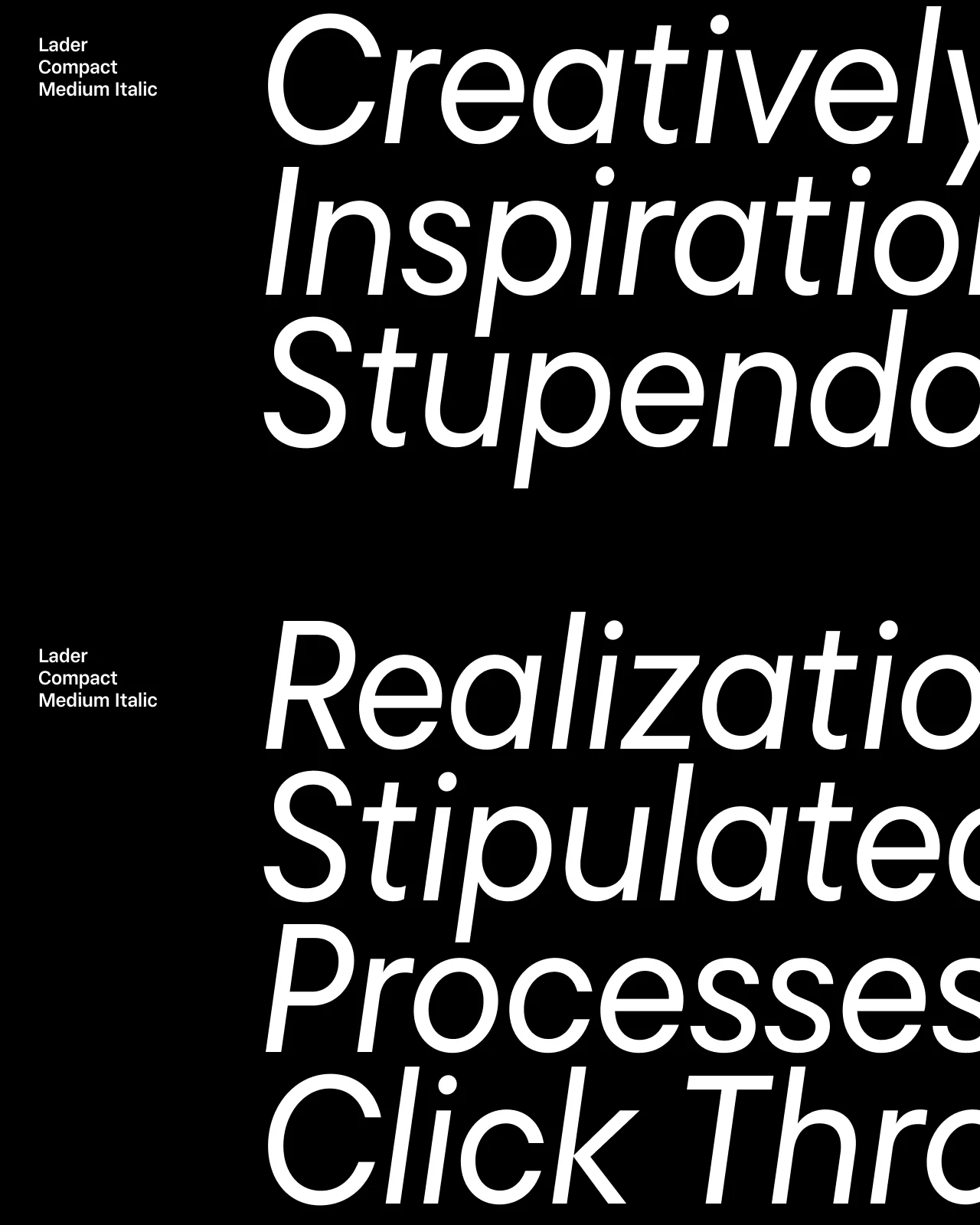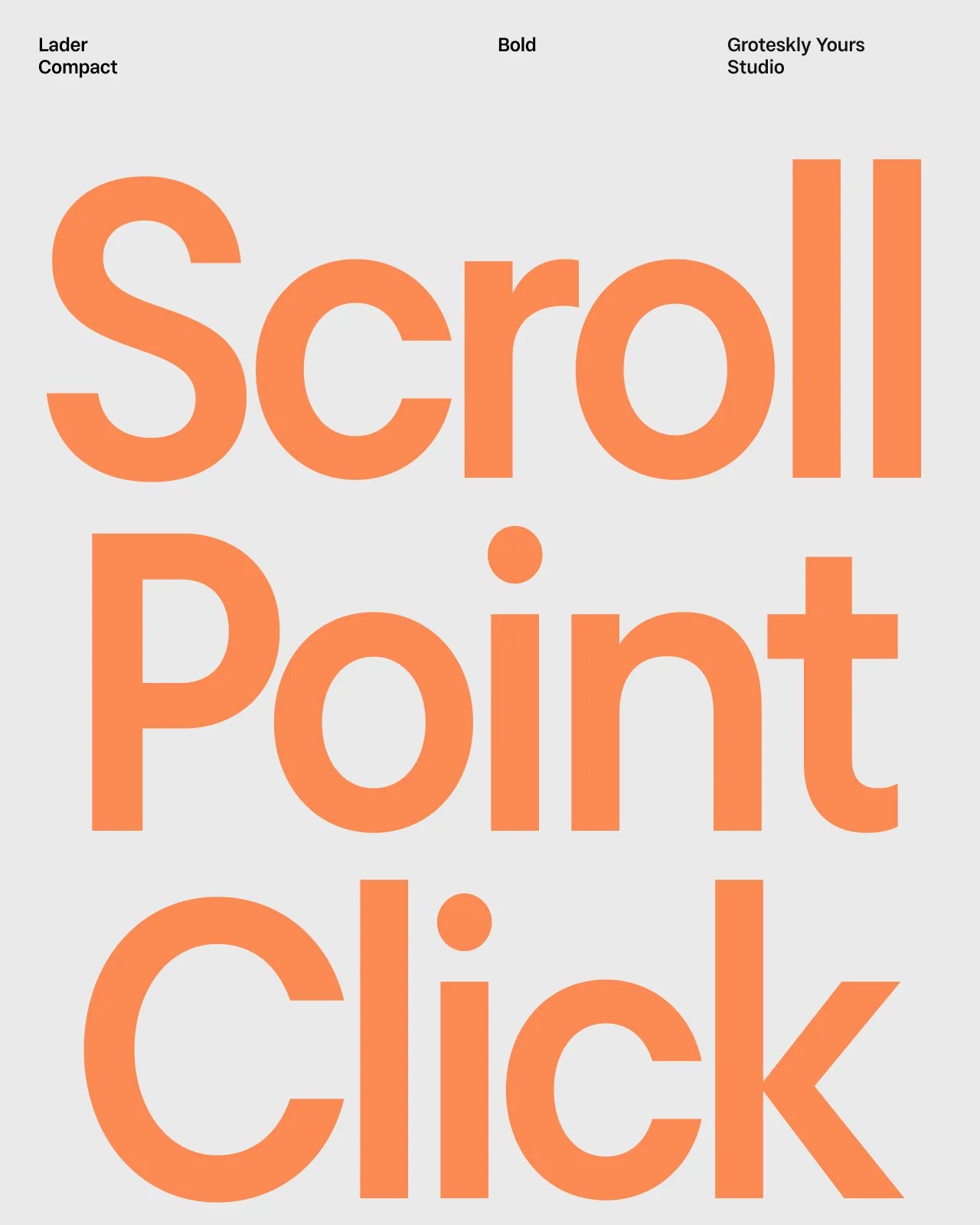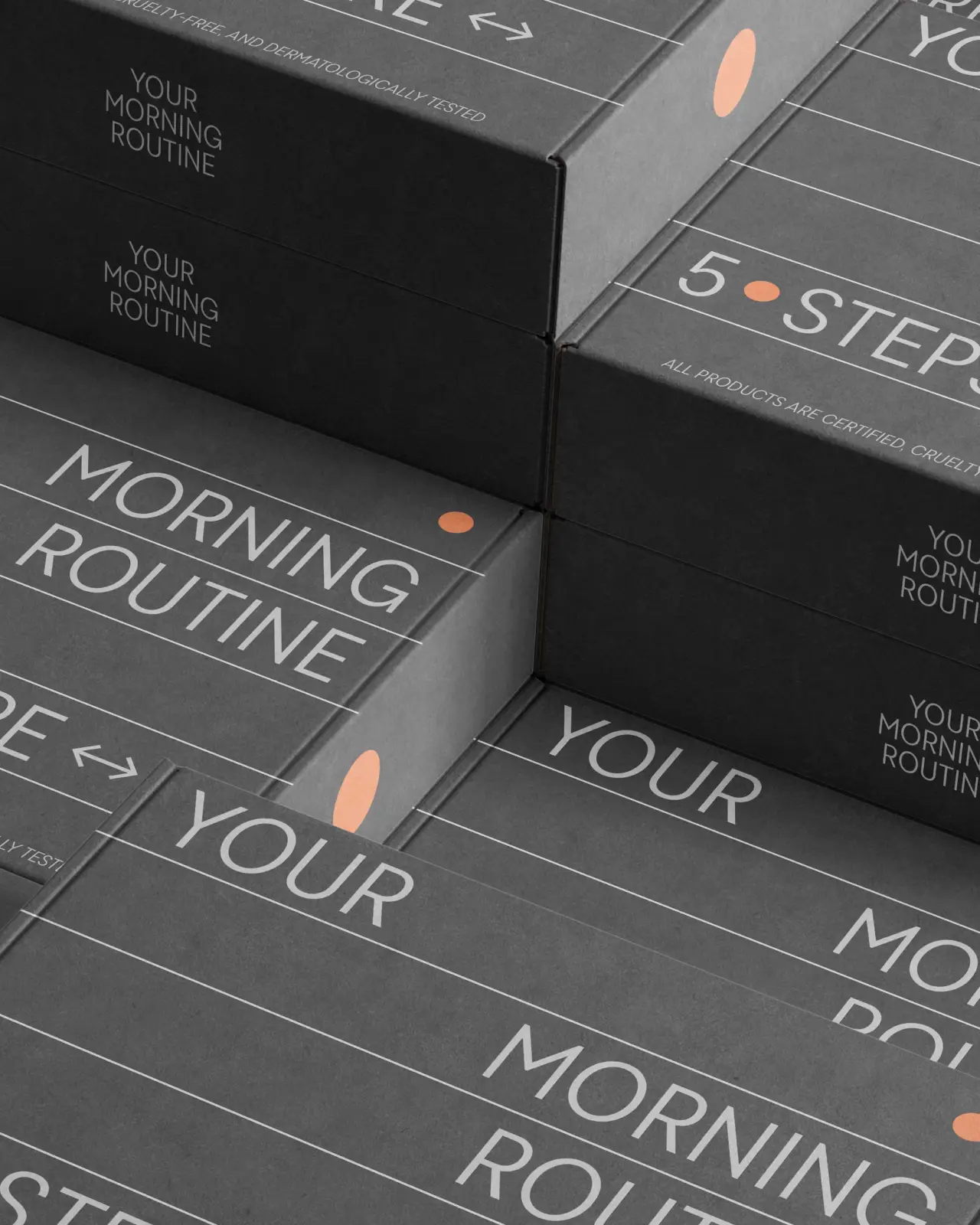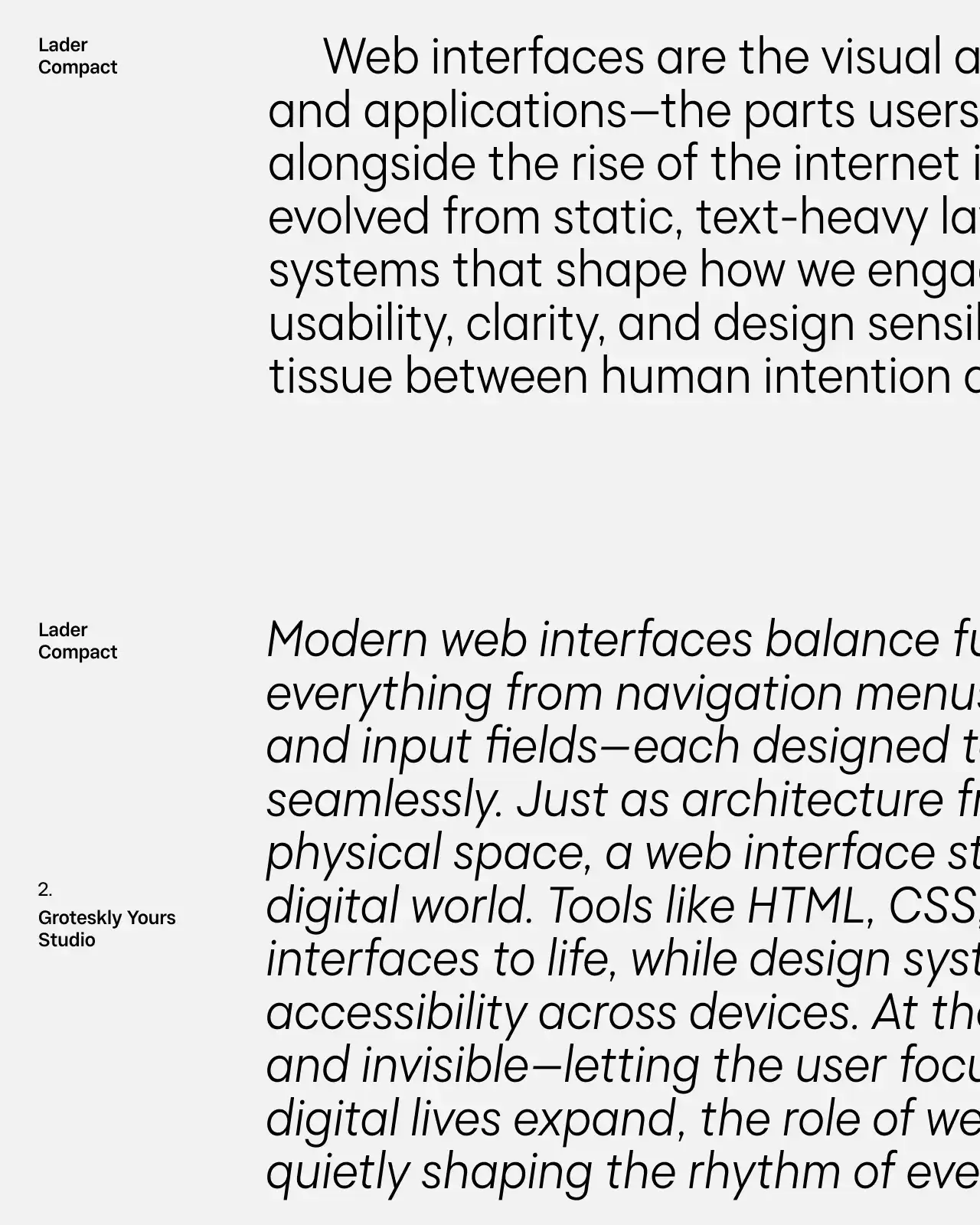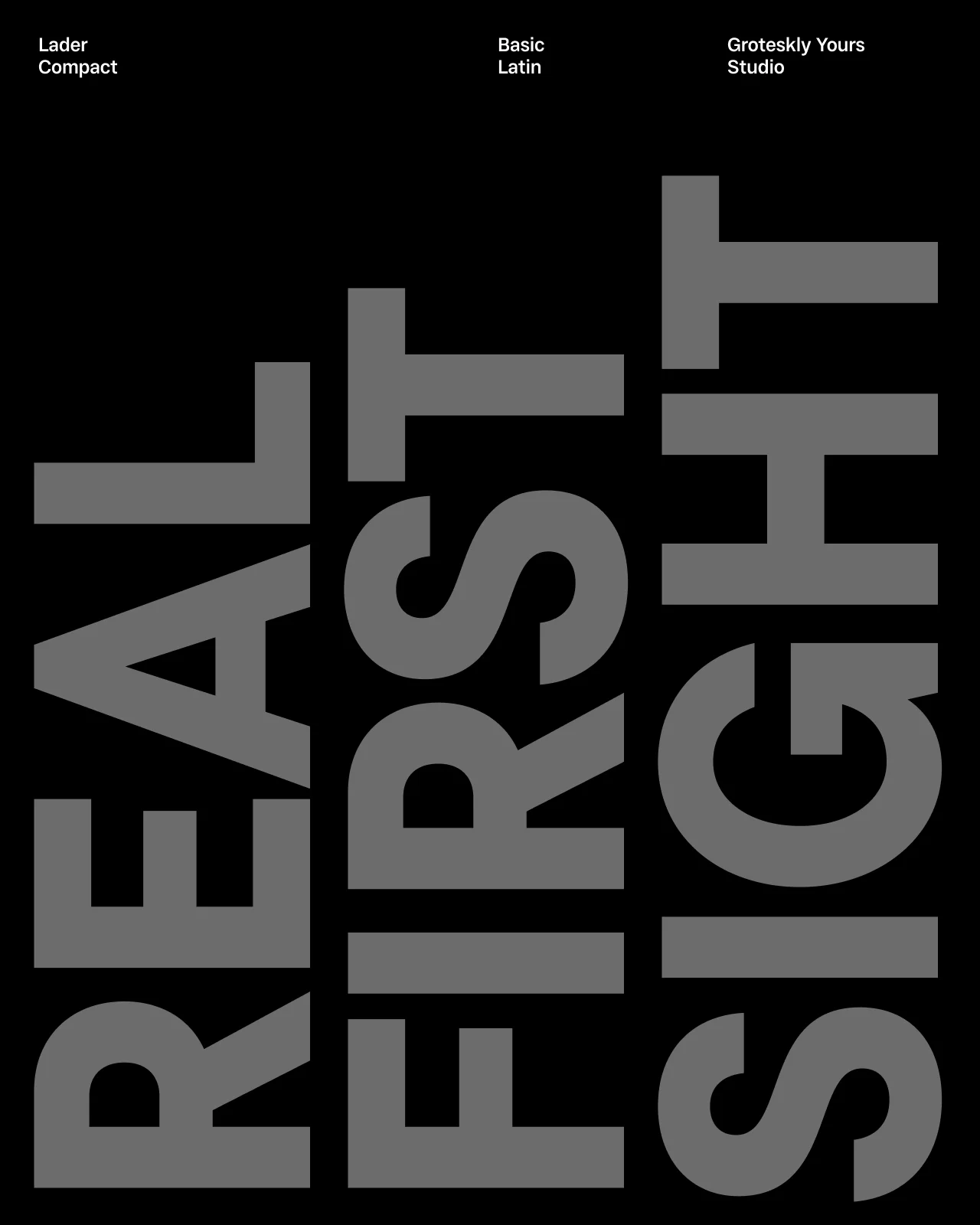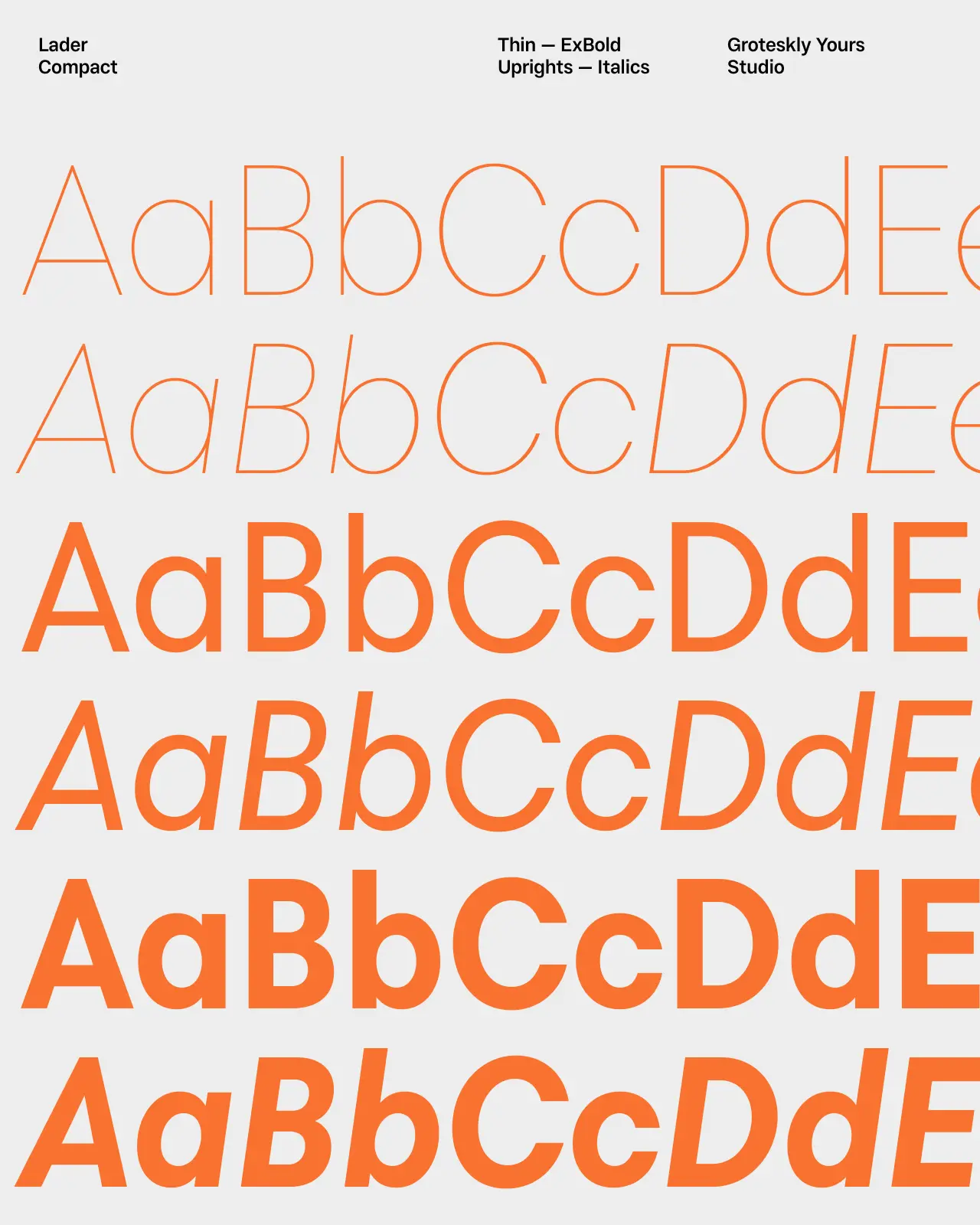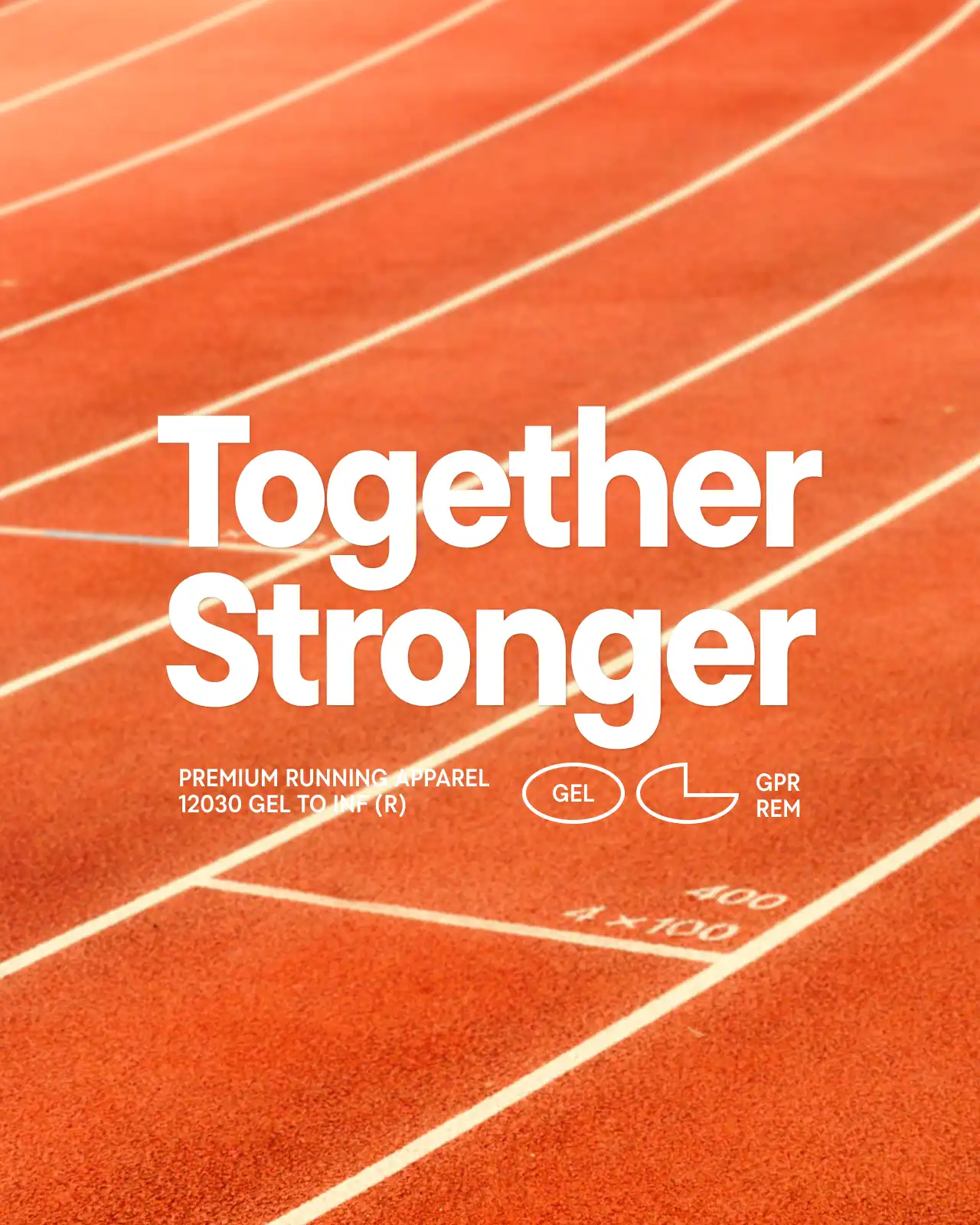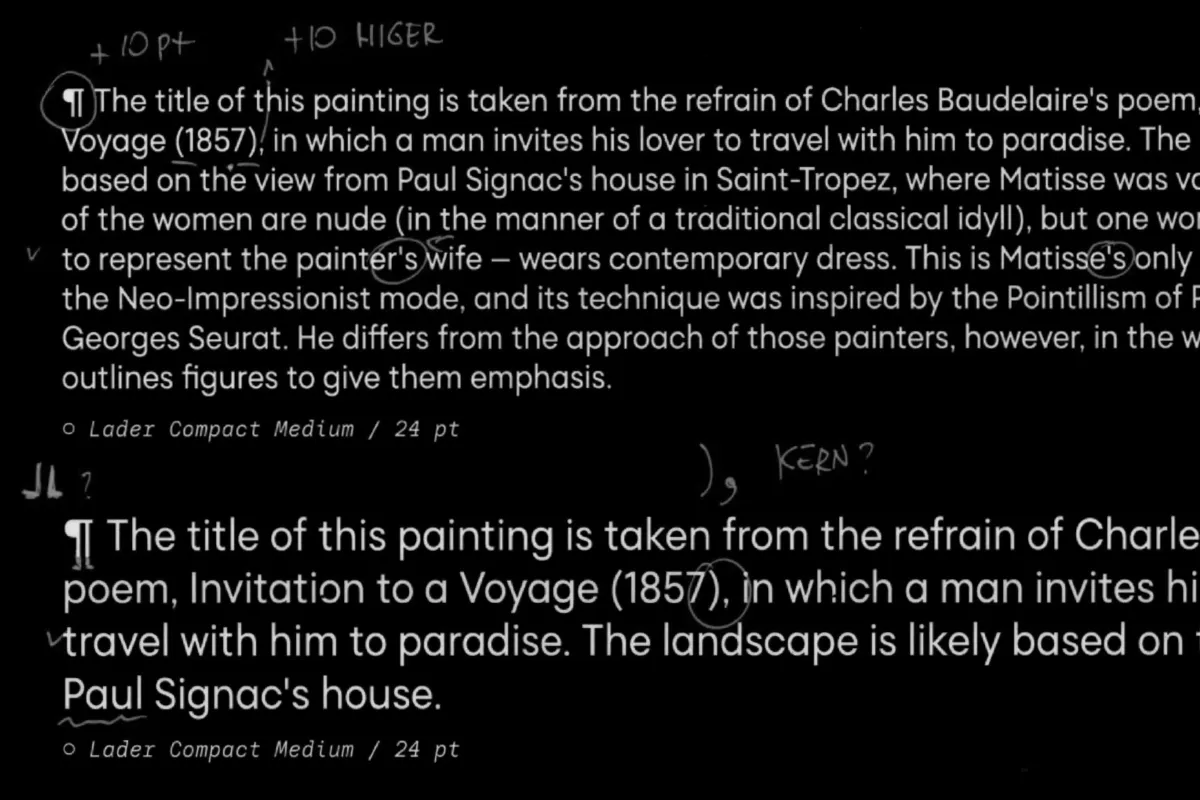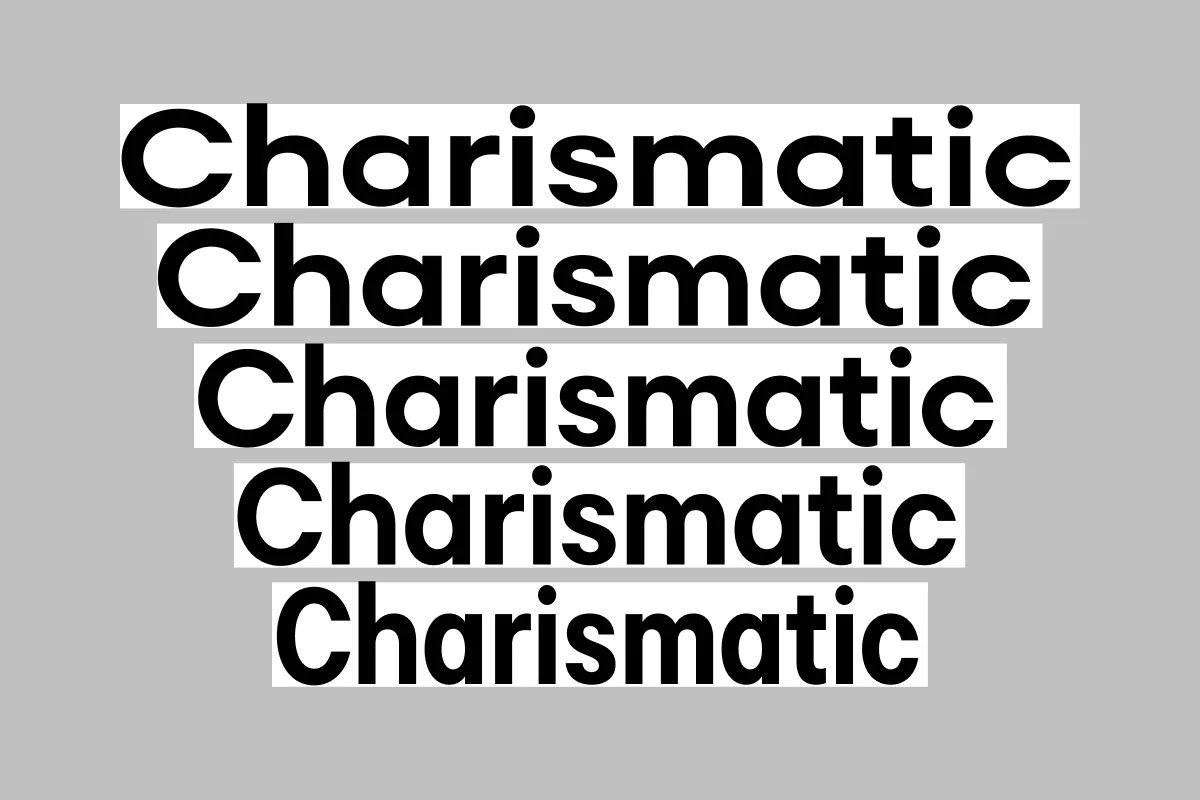
Lader Compact
Lader Compact is the second narrowest subfamily in the Lader family, positioned between the narrow Lader Condensed and the standard Lader. With 18 styles from Thin to Black and matching italics, it offers a balance of space-saving efficiency while retaining more of the geometric grotesque’s character. Its balanced proportions and clean structure make it ideal for projects that require economy of space without sacrificing personality.
Lader Compact blends precise geometry with subtle curves, maintaining warmth and clarity throughout. Its versatile tone works well across both text and display uses, making Lader Compact a reliable choice for editorial design, packaging, and digital environments, especially in web design, app interfaces, and UX/UI contexts where clarity and style go hand in hand.
The Lader Compact subfamily comes equipped with a full range of OpenType features, from stylistic alternates and ligatures to fractions, subscript, and superscript, providing the typographic flexibility needed for expressive and functional design. Supporting over 150 languages, Lader Compact is ready to meet the needs of global audiences without compromise.